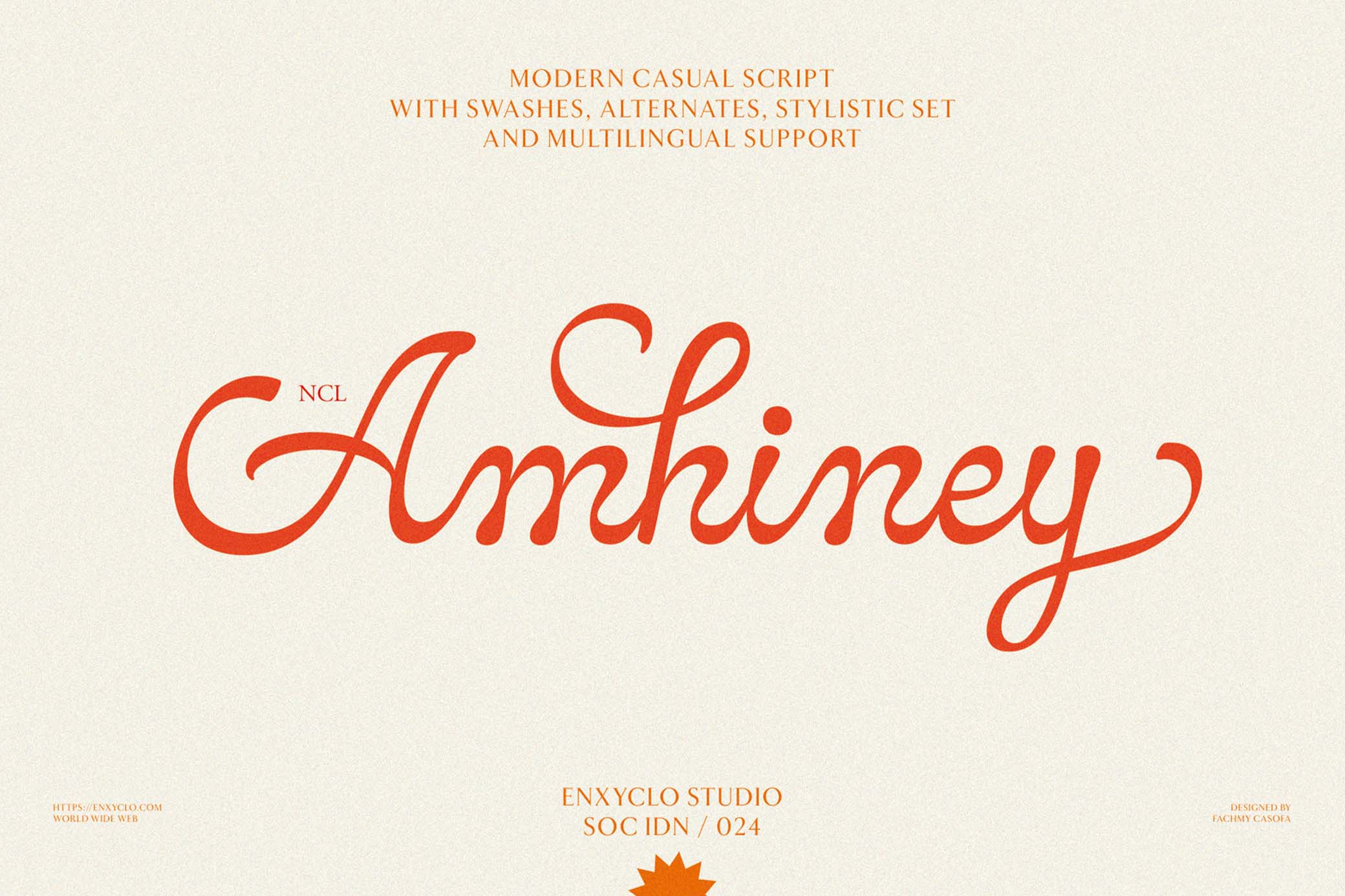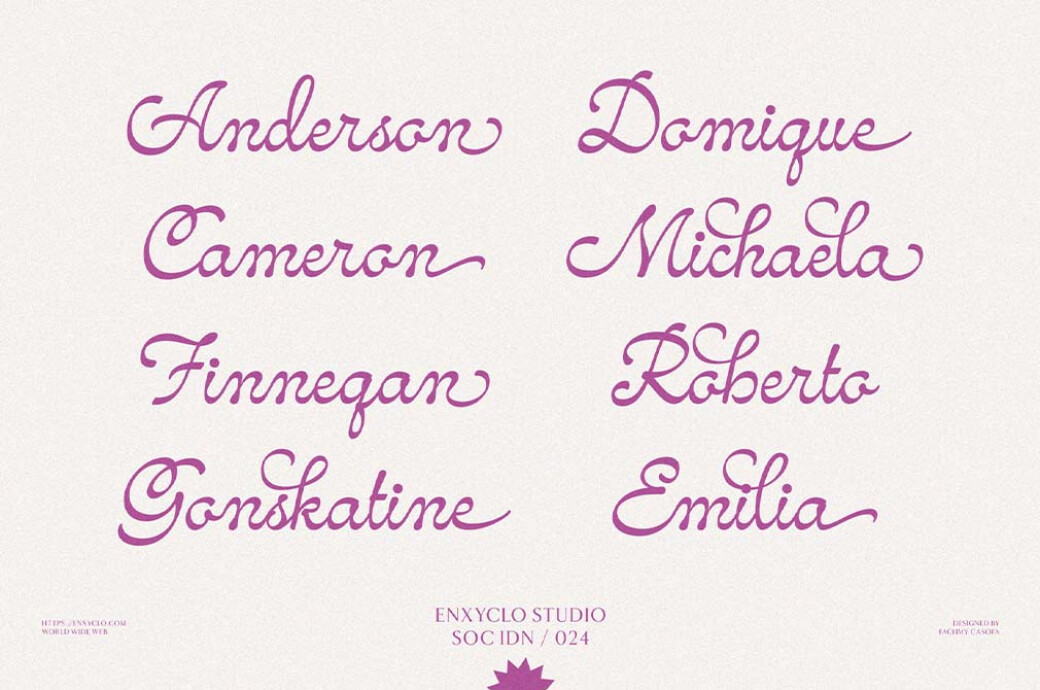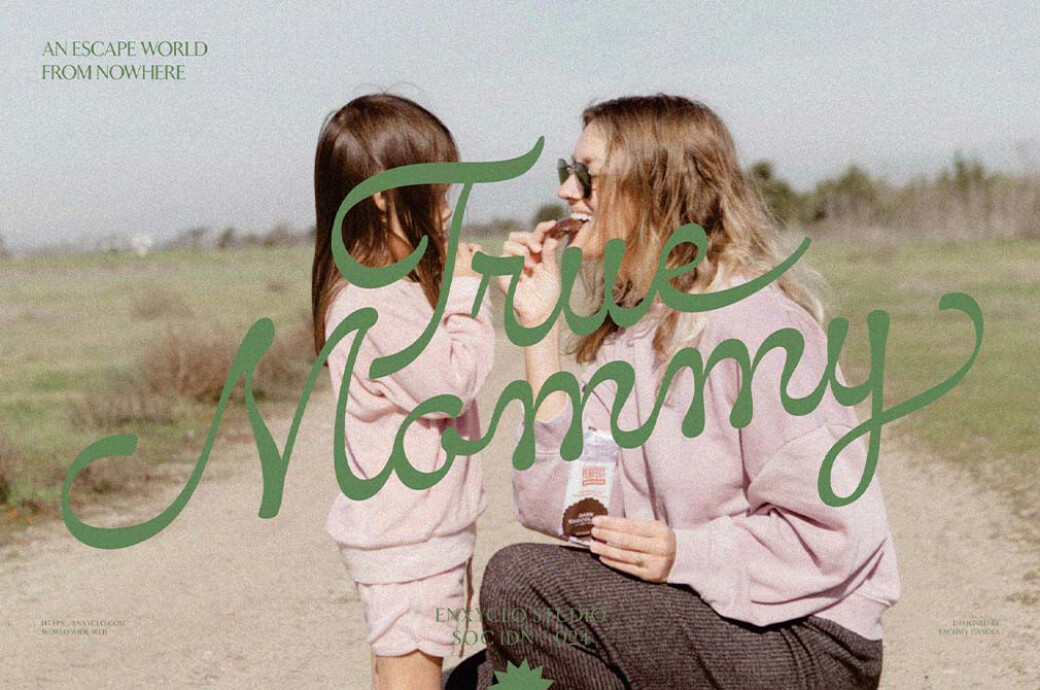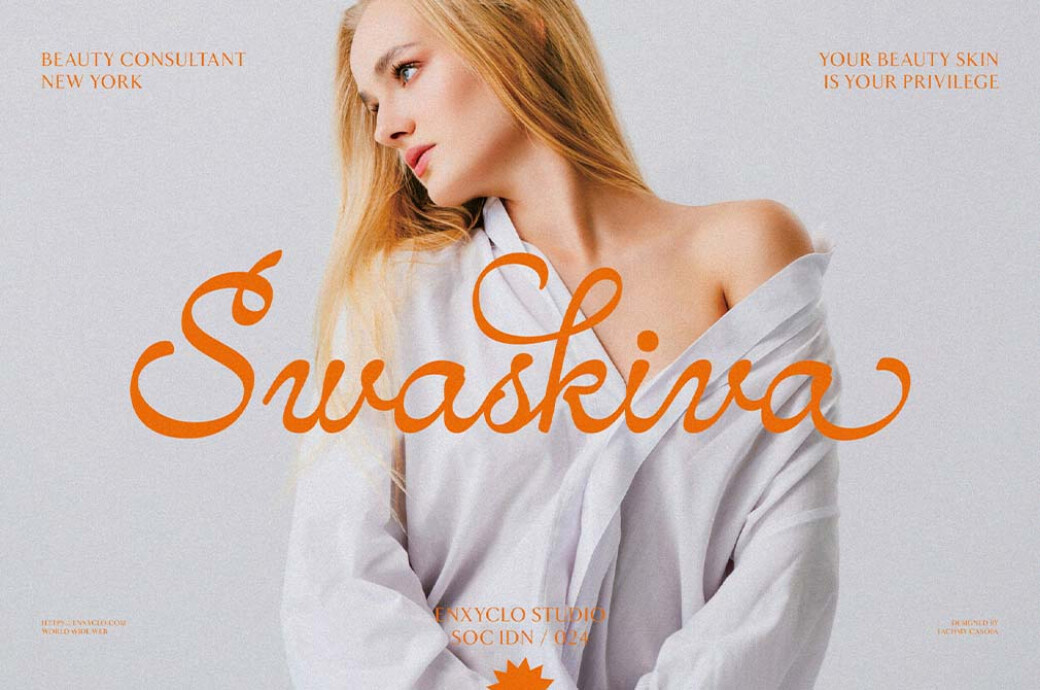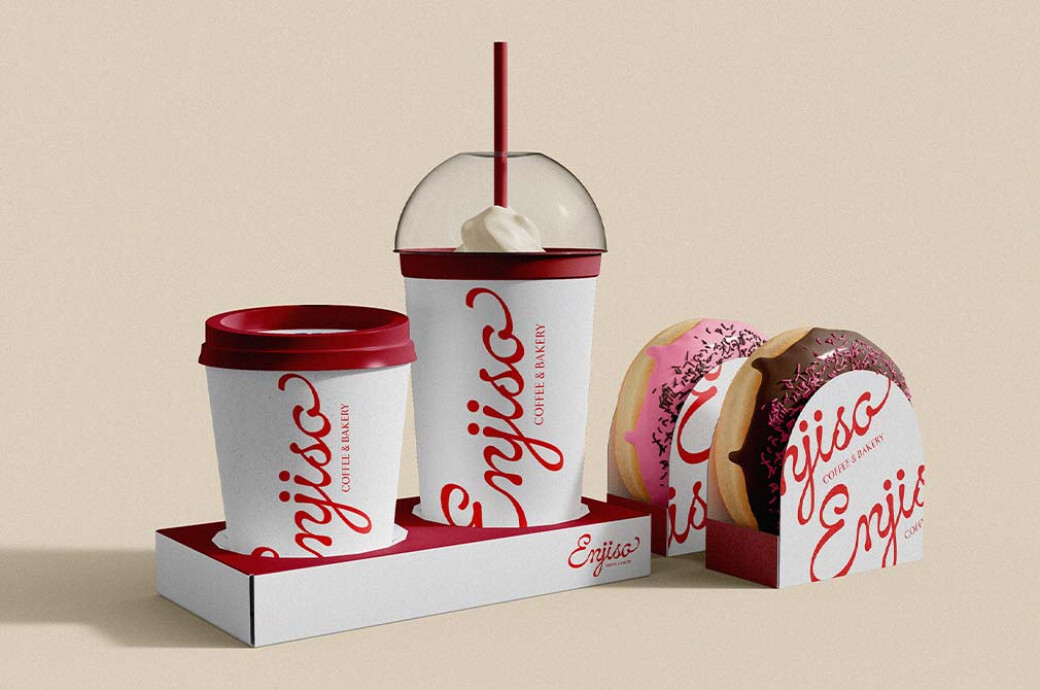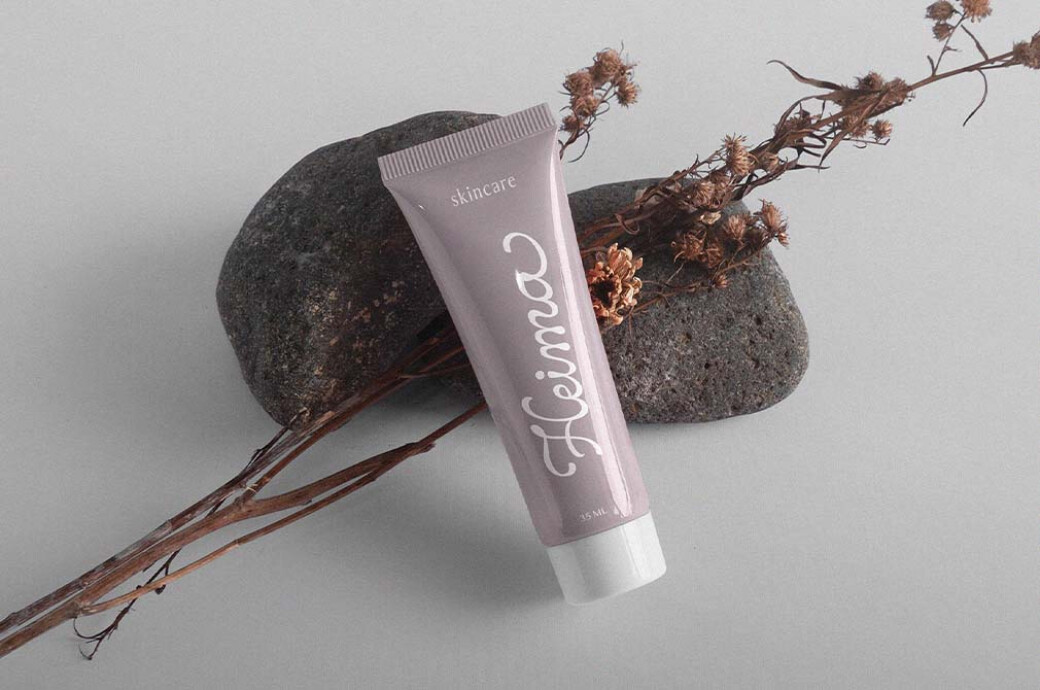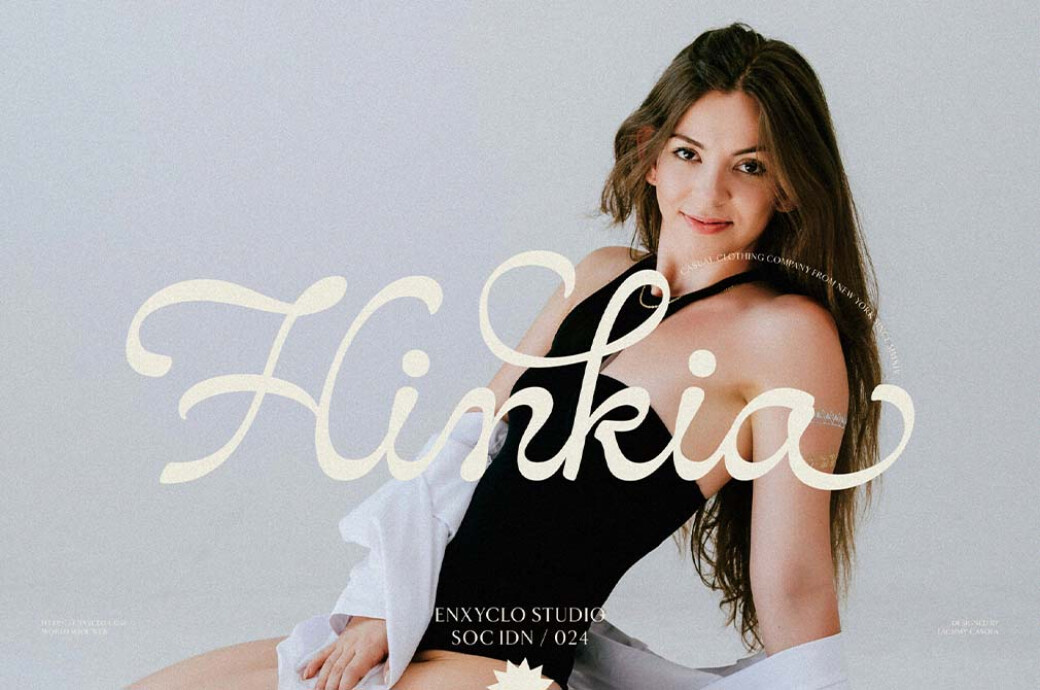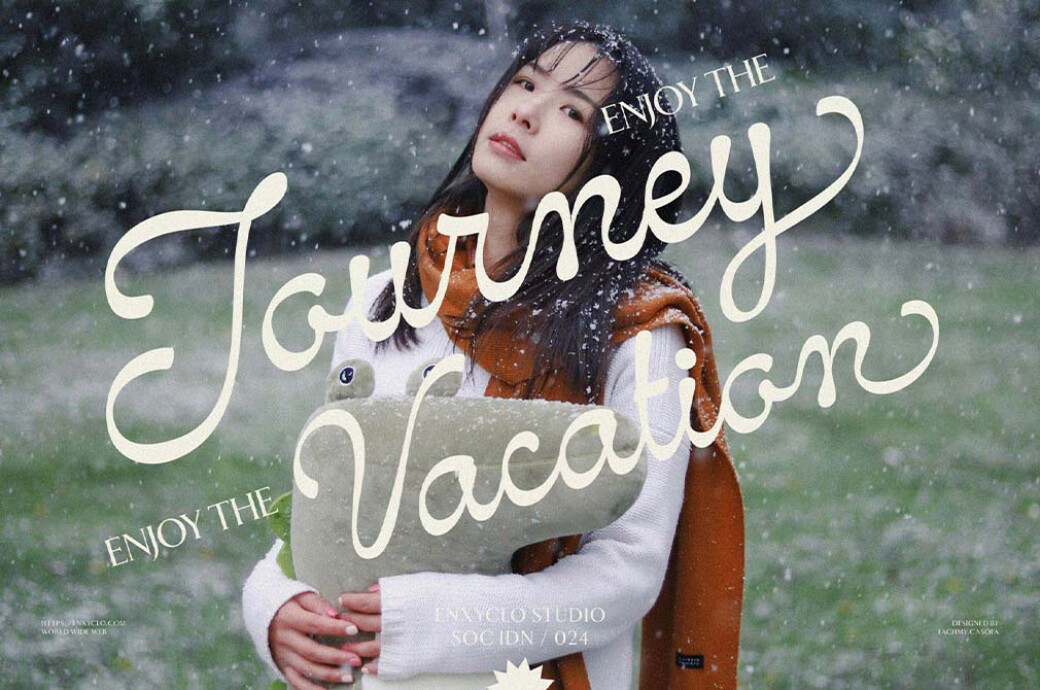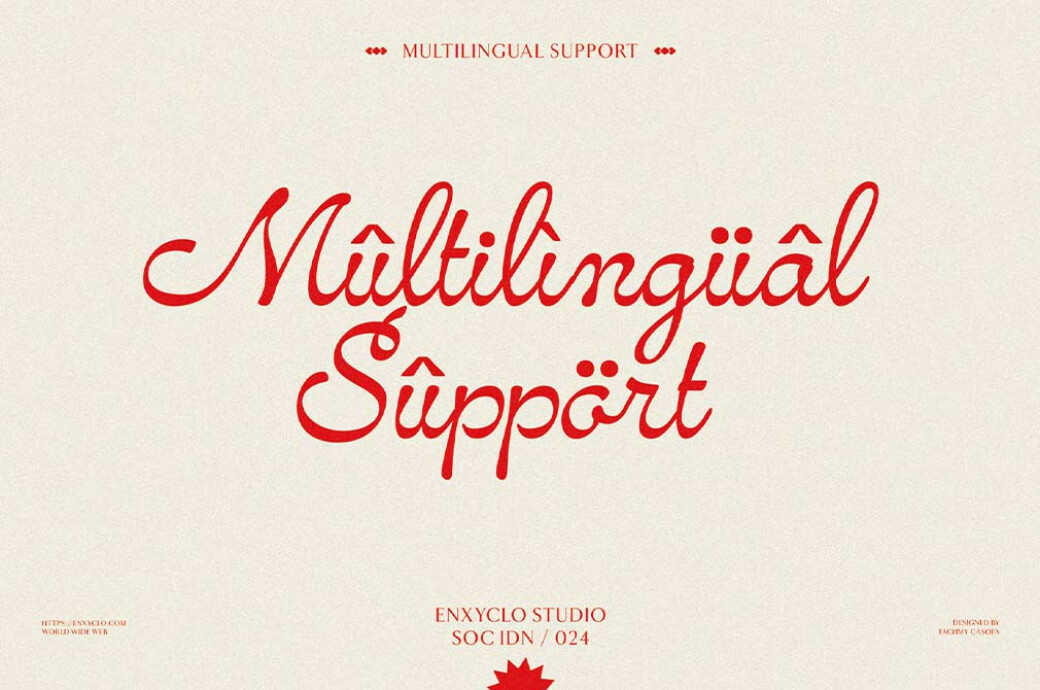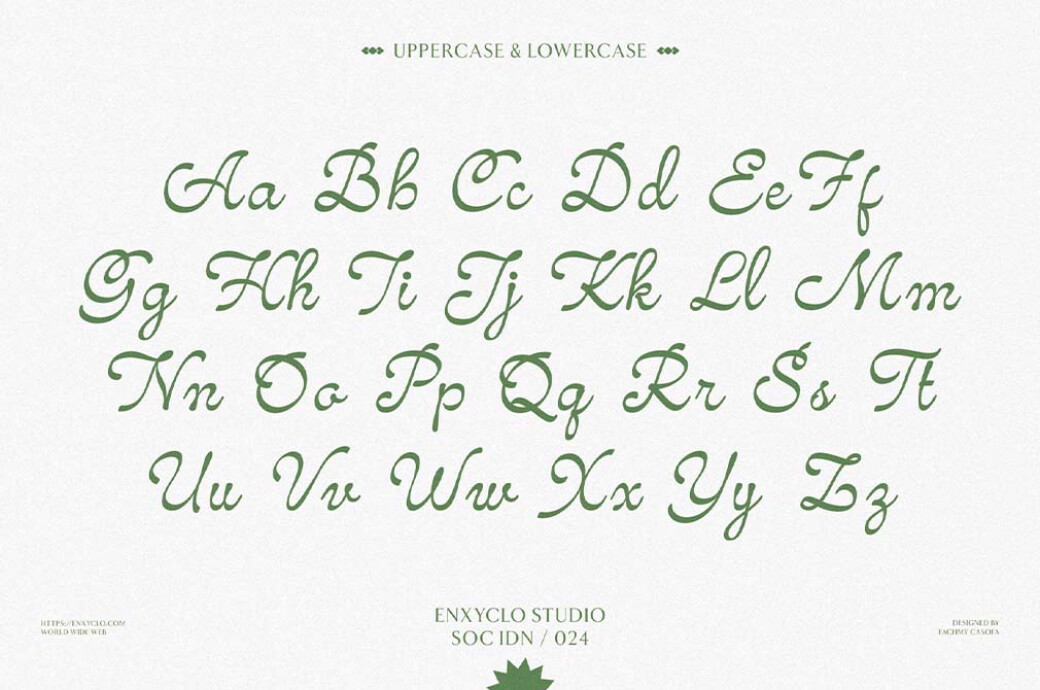
NCL Amhiney — Casual Script Font
NCL Amhiney
Some trendy typography is on the radar! Meet NCL Amhiney, a script with a zest that's curvy, flexible, flowing, nostalgic, and cutting-edge at the same time.
We love fonts with many faces, so they'll look different depending on the environment. NCL Amhiney is the case: it will look good in retro cards and modern zines, as a tattoo font, and as a focal branding/logo element. So much at a time, right? In fact, not only is its appearance universal, but the character set is, too. It's got everything: upper and lowercase letters, symbols punctuation, numbers, international characters, and three stylistic sets.